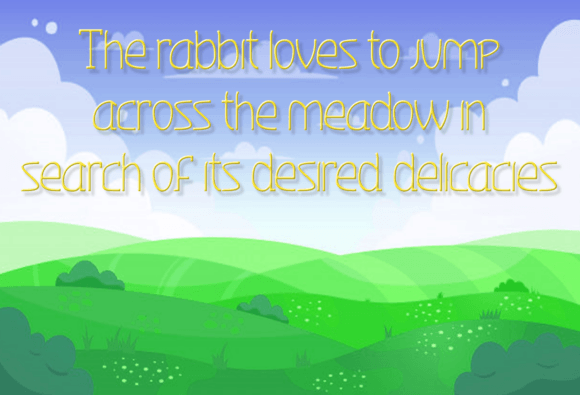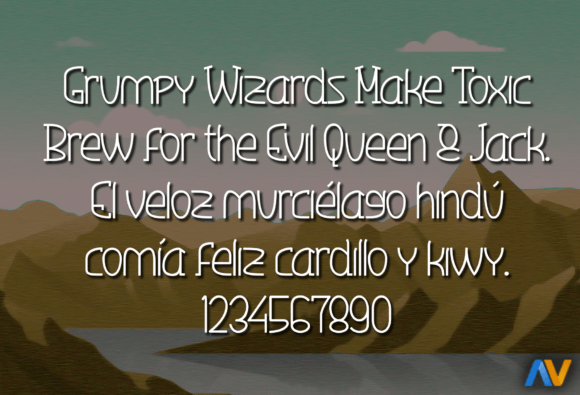
Introduction to Libere Font
Have you ever found yourself staring at a blank canvas, searching for the perfect font to bring your creative project to life? The moment of truth arrives when you finally discover a font that speaks to your vision, elevating your design from ordinary to extraordinary. For designers, finding the right font can be a game-changer, setting the tone for a cohesive and engaging visual narrative.
Enter the Libere Font, a stunning sans serif font designed to empower your creative endeavors. With its versatility and high-quality design, Libere Font is poised to become a trusted design resource for professionals and hobbyists alike. Whether you’re working on a project with a transparent background or need a font that can adapt to multiple languages, Libere Font has got you covered.
Key Features of Libere Font
- High-quality, professional design suitable for various creative projects, including logos, branding, and digital art.
- Unique, modern design with a transparent background, allowing for easy customization and integration with different backgrounds and designs.
- Perfect for designers looking for a versatile and high-quality design resource, ideal for a wide range of creative projects.
- Designed to be highly legible, making it perfect for use in digital art, logos, and branding materials.
Honest Review: Libere Font
As a designer, I’m always on the lookout for high-quality design resources that can elevate my creative projects. The Libere Font is one such find that has caught my attention.
- Beautiful, elegant design that’s perfect for elegant, high-end projects
- High-quality font that’s optimized for clear readability
- Transparent background, allowing for seamless integration into any design
- Only available in a single weight, which might limit its versatility in certain projects
- No companion fonts or variations available, which could be a drawback for designers looking for a more comprehensive solution
Overall, the Libere Font is a solid choice for designers looking for a high-quality, elegant font to elevate their creative projects. While it may have some limitations, its beauty and clarity make it a worthwhile addition to any design library. With a transparent background and free download option, it’s a transparent and accessible design resource that’s hard to pass up.
For the best results, use Libere Font in conjunction with a high-contrast background to make the text stand out. You can also experiment with different font sizes and styles to add visual interest to your design. Additionally, consider using the font in conjunction with other design elements, such as images or graphics, to create a cohesive and engaging visual identity.
Libere Font is a versatile design resource that can be used in a variety of creative projects, including presentations, documents, and social media graphics. It’s a great choice for anyone looking for a high-quality, free download font with a transparent background.